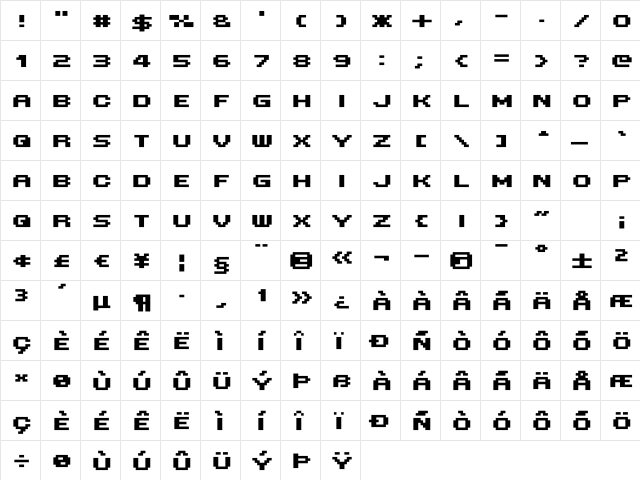
Mini 7 Extended Bold
Design Context for Mini 7 Extended Typeface
Mini 7 Extended takes a measured approach to typography — its balanced proportions and neutral character make it a reliable workhorse for both digital and print work. Its bold stroke weight gives it real presence on the page.